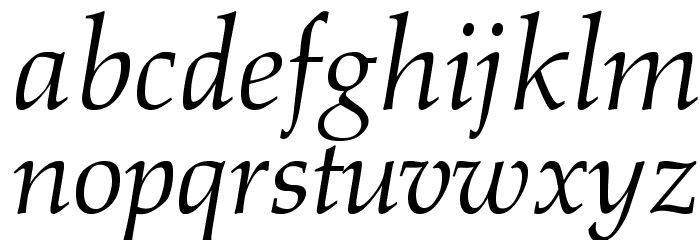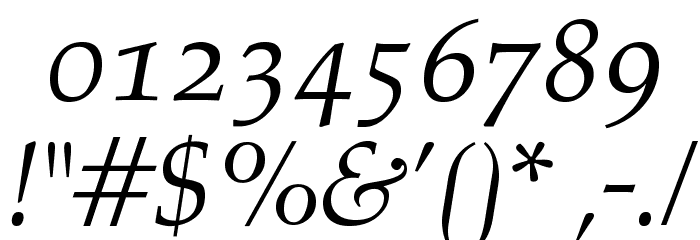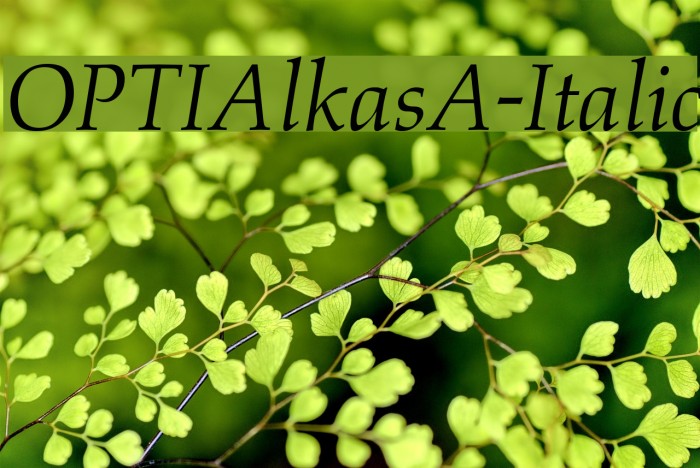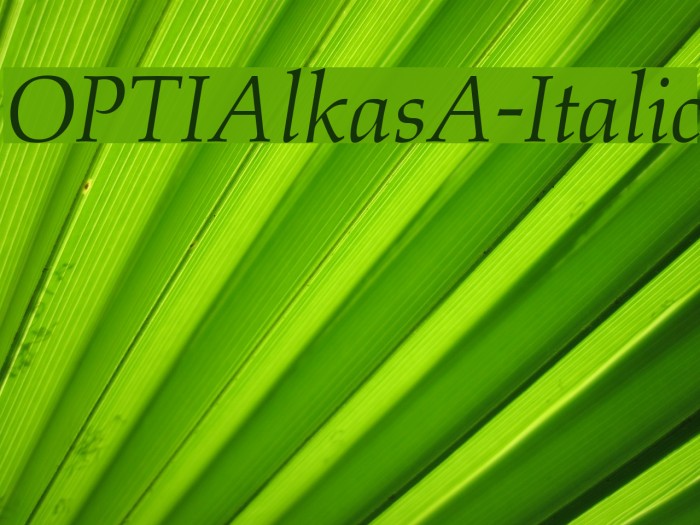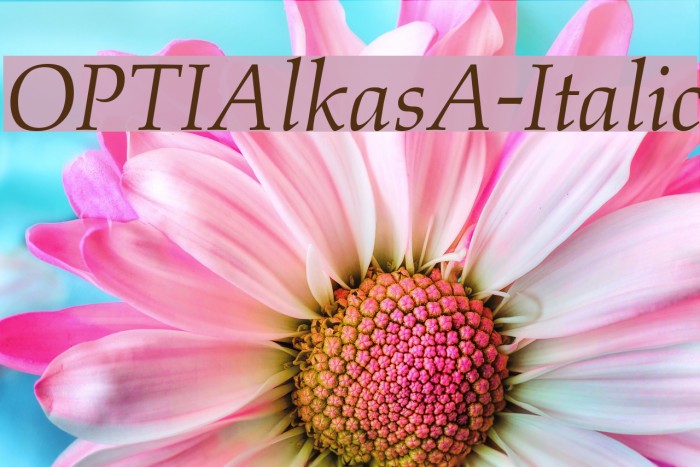
OPTIAlkasA-Italic Font
This font features an elegant and sophisticated italic style, characterized by its smooth and flowing curves. The uppercase letters maintain a classic form with slight slants, while the lowercase letters exhibit a more pronounced cursive influence, adding a touch of grace and fluidity. The numerals are well-proportioned, ensuring readability, and the special characters are designed with a consistent style that complements the overall aesthetic. The font's design is suitable for conveying a sense of refinement and elegance, making it ideal for projects that require a touch of class.
An elegant italic font with smooth curves and a refined style.
- Proposed Projects: Ideal for wedding invitations, luxury branding, editorial design, and elegant signage.
- Category: Serif
- Overall Style: Classic
- Use Case: Headlines, Logos, Invitations